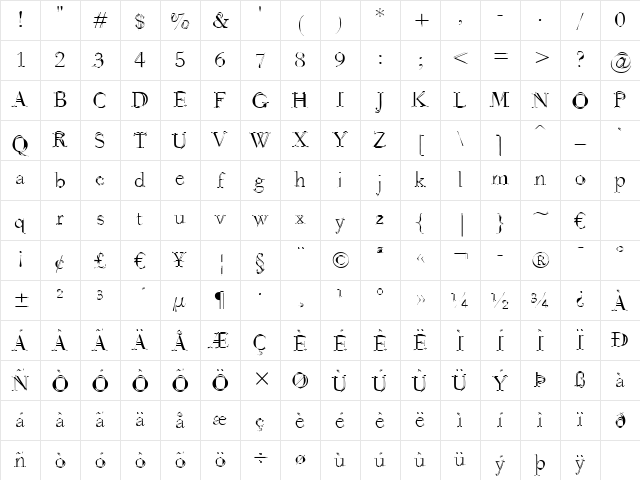
Rina BT Roman Free Font
Rina BT Roman
Design Context for Rina BT
Rina BT is a composed and adaptable typeface that performs quietly and consistently across a wide range of design contexts.